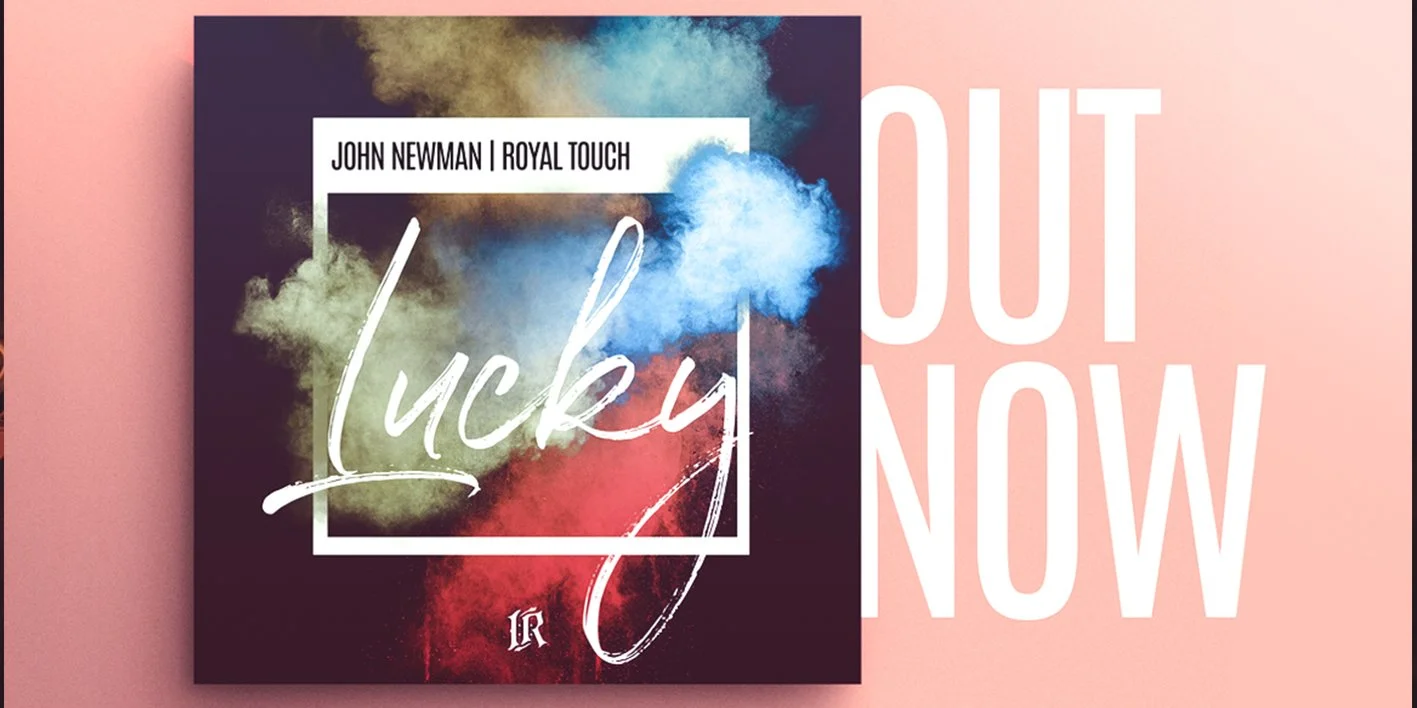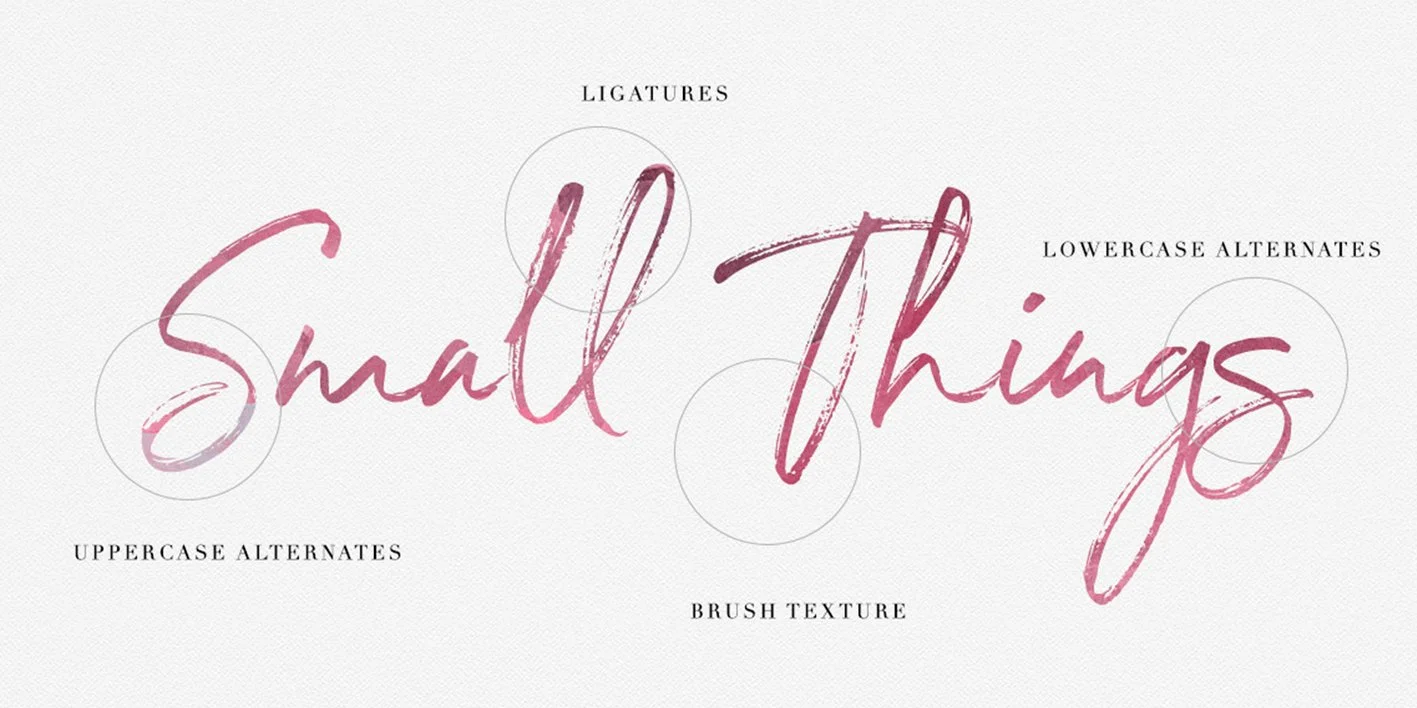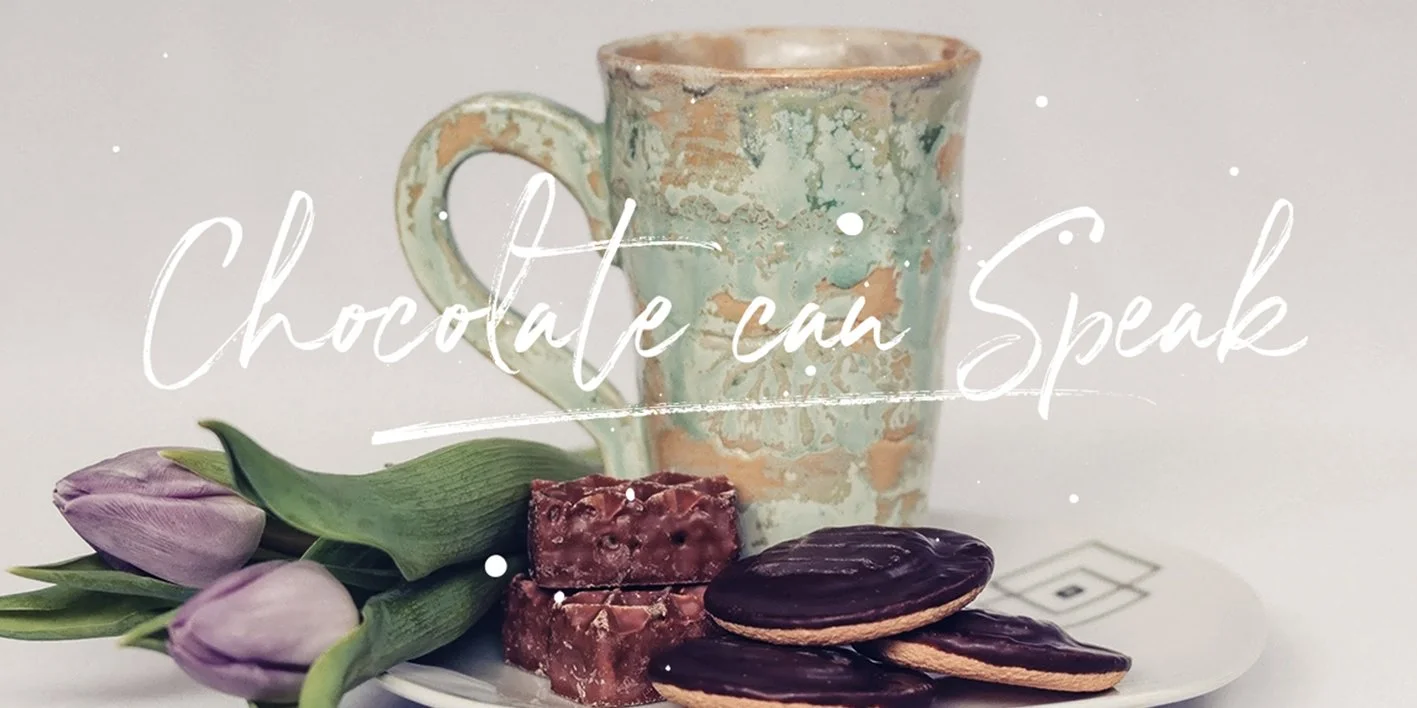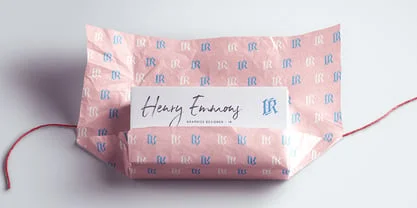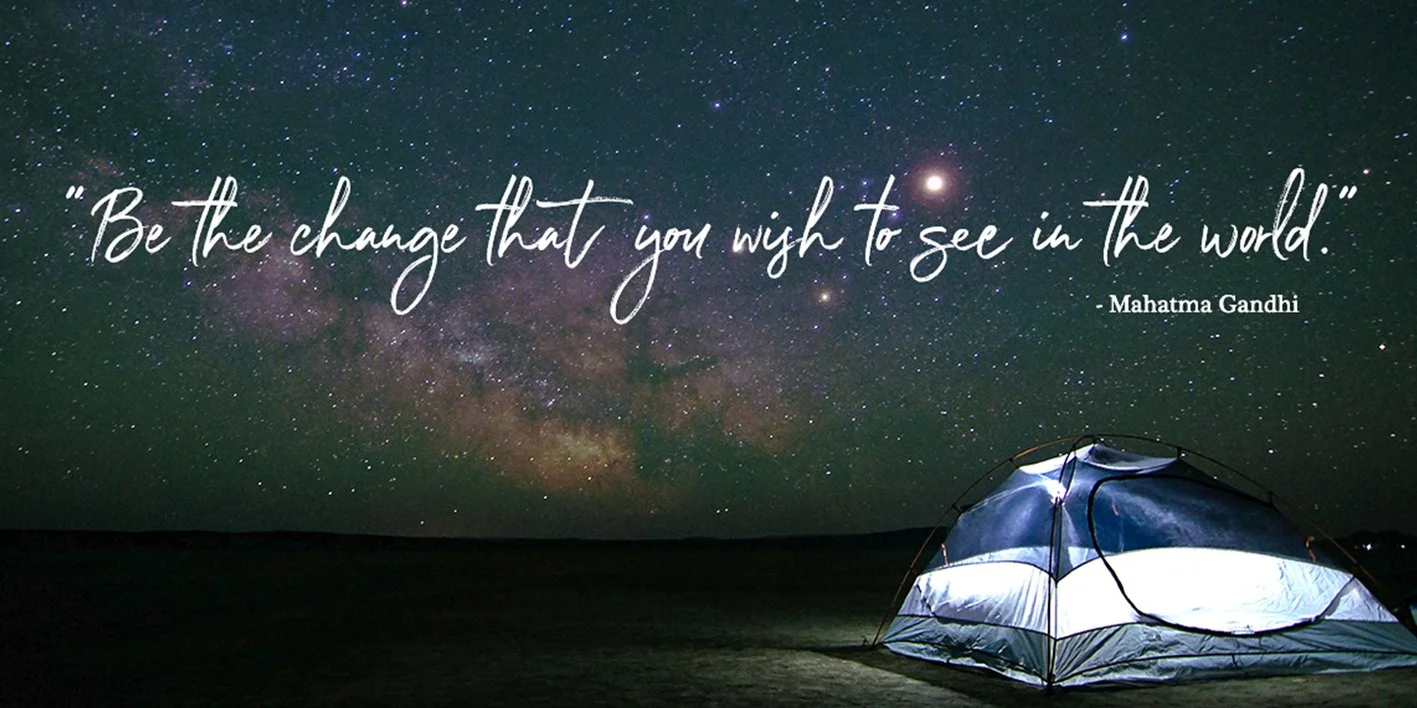
Royal Touch Font
When a design brief calls for both visual harmony and precise spacing and immediate visual impact, type choices matter. Royal Touch answers that brief. The typeface brings an elegant, calligraphic sensibility to a broad range of creative disciplines, with optical balance across all weights that holds up whether the work is print-first or screen-first.
In practice, Royal Touch proves particularly effective for fashion editorials, boutique logos, feminine branding, greeting cards, bridal materials. Designers reaching for it report that the type decisions feel resolved rather than laboured — a useful quality when client timelines are tight and creative bandwidth is limited.
The letterforms draw from classical calligraphic tradition, with carefully modulated thick-to-thin stroke contrast that mimics the pressure of a pointed nib. Connecting strokes have been optically adjusted so words flow naturally without awkward gaps between characters.
The range of applications extends to event signage, signage systems, advertising campaigns, beauty packaging. That breadth is not accidental: the proportions and spacing were tested across a range of mock briefs before the typeface was finalised, ensuring the design holds together in contexts beyond the obvious ones.
Brand strategists building visual languages find Royal Touch a reliable workhorse for projects where the brief demands both personality and restraint. The typeface avoids the self-conscious quirkiness that dates quickly, settling instead for the kind of considered distinctiveness that remains effective over a longer creative lifespan.